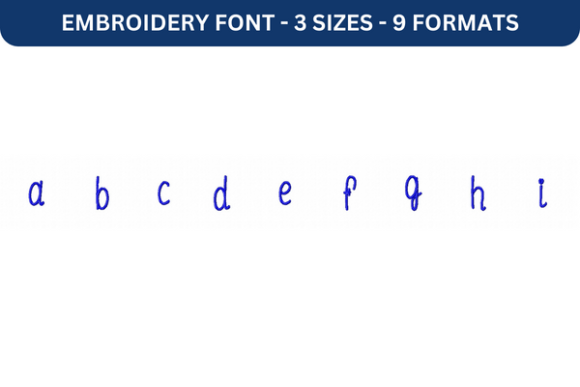
Strategic Use of Le Laboratoire Font Lower a to I for Creative and Professional Applications
Le Laboratoire Font Lower a to I is more than just a decorative tool—it’s a strategic asset for creators, professionals, and small business owners who want to elevate their visual communication. This high-quality embroidery font offers precision, versatility, and a unique aesthetic that can be leveraged across multiple industries. Whether you're designing custom apparel, crafting personalized gifts, or enhancing brand identity through embroidered elements, understanding how to use this font intentionally can make a significant difference in your outcomes.
The Strategic Value of Le Laboratoire Font Lower a to I
At its core, Le Laboratoire Font Lower a to I is designed with clarity and elegance in mind. Its clean lines and consistent structure make it ideal for both personal and professional use. Unlike generic fonts that lack character, this design maintains a refined appearance while remaining highly readable. For entrepreneurs and marketers, this means the ability to communicate messages clearly and effectively without sacrificing style.
Supporting Goals Through Thoughtful Design
When used strategically, Le Laboratoire Font Lower a to I can play a key role in achieving specific goals. For instance, if you're launching a new product line, using this font on packaging or promotional materials can help reinforce your brand’s identity. The font’s elegant structure aligns well with creative branding efforts, making it an excellent choice for logos, taglines, and custom labels.
For educators and content creators, this font can enhance the visual appeal of educational materials or digital content. By incorporating it into presentations, infographics, or printables, you can create a more engaging experience for your audience. The font’s readability ensures that even complex information remains accessible, supporting better learning outcomes and improved communication.
Practical Applications and Real-World Use Cases
Consider the case of a freelance designer who specializes in custom embroidery. By integrating Le Laboratoire Font Lower a to I into their portfolio, they can showcase their ability to deliver high-quality, visually appealing designs. This not only attracts potential clients but also sets them apart from competitors who may rely on less distinctive fonts.
Another example is a small business owner running a boutique that sells personalized items. Using this font to embroider names, dates, or quotes on products allows for greater customization, which can increase customer satisfaction and drive sales. The font’s versatility means it can be applied to a variety of fabrics, from cotton to denim, expanding the range of products available to customers.
For professionals in the marketing industry, this font can serve as a powerful tool for creating branded merchandise. Whether it's embroidered shirts for team events or custom signage for pop-up shops, the font’s consistency and quality ensure that every piece maintains a cohesive look. This helps reinforce brand recognition and enhances the overall customer experience.
Planning and Execution: A Strategic Approach
Before relying on any design element, it’s important to consider how it fits into your broader strategy. Le Laboratoire Font Lower a to I should not be used randomly; rather, it should be integrated thoughtfully into your creative and business plans. Begin by identifying your primary objectives—whether it’s improving brand visibility, increasing engagement, or boosting sales—and then determine how this font can support those goals.
For instance, if your goal is to create a cohesive brand identity, you might start by selecting a color palette that complements the font’s design. Then, consider how it will be applied across different platforms—social media, websites, physical products, etc. This approach ensures that your use of the font is intentional and aligned with your overall vision.
Additionally, it’s crucial to evaluate the technical requirements associated with using this font. While it comes with multiple embroidery file formats, you’ll need to ensure that your embroidery machine is compatible with these files. Familiarizing yourself with the setup process and testing the font on a small scale before large-scale production can help avoid potential issues down the line.
Decision-Making and Risk Mitigation
Like any design tool, Le Laboratoire Font Lower a to I has its limitations. One potential risk is over-reliance on the font without considering alternative options. While it offers a unique aesthetic, there may be situations where a different font would better suit the message or context. For example, a more playful or bold font might be more appropriate for a children’s clothing line, whereas this font could feel too formal.
To mitigate such risks, it’s essential to approach the font with a clear understanding of its strengths and weaknesses. Conducting a thorough evaluation of your needs and experimenting with different combinations can help you make informed decisions. This proactive approach ensures that you’re using the font in a way that maximizes its benefits while minimizing potential drawbacks.
Moreover, setting clear goals and timelines can prevent the font from becoming a distraction. If you’re working on a time-sensitive project, it’s important to allocate sufficient time for testing and refining your designs. This allows you to focus on quality rather than rushing to meet deadlines.
Long-Term Value and Continuous Improvement
Le Laboratoire Font Lower a to I is not just a one-time investment—it’s a resource that can contribute to long-term success. As your business grows and your creative projects evolve, this font can continue to support your objectives. Whether you’re expanding your product line, launching a new brand, or exploring new markets, the font’s adaptability ensures that it remains relevant and useful.
Continuous learning and refinement are also key to maximizing the font’s value. Staying updated on design trends, customer preferences, and technological advancements can help you leverage this font more effectively. Engaging with the embroidery community or seeking feedback from peers can provide valuable insights and inspiration for future projects.
Ultimately, the strategic use of Le Laboratoire Font Lower a to I lies in its ability to enhance creativity, communication, and productivity. By approaching it with intention, you can unlock its full potential and achieve better results in both personal and professional contexts.